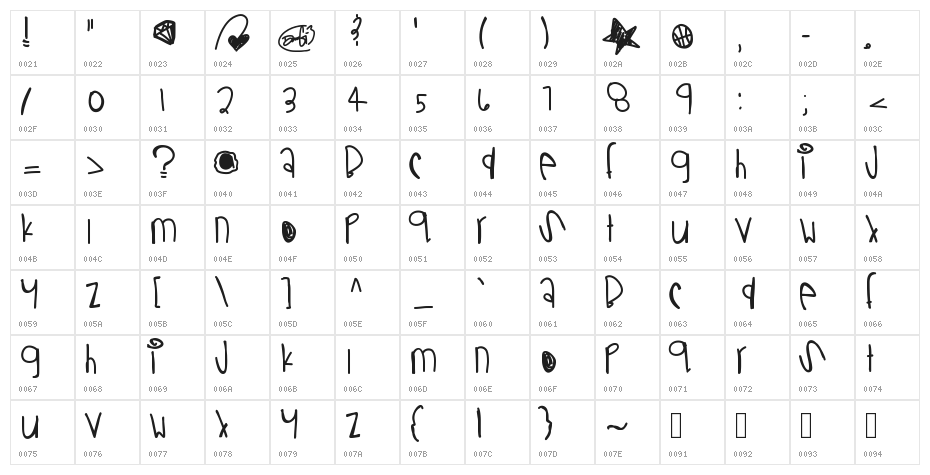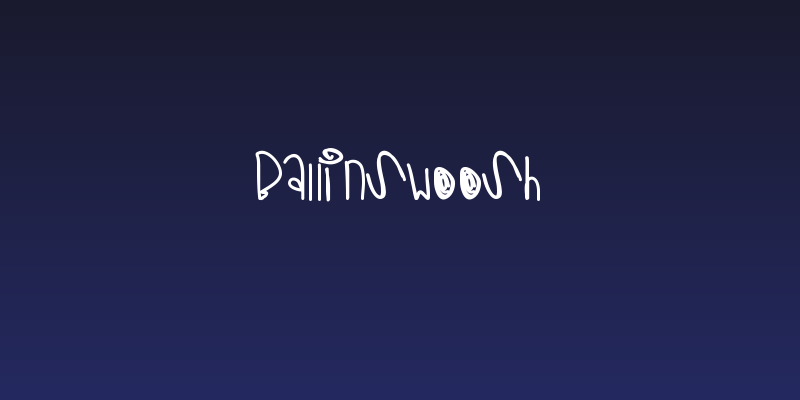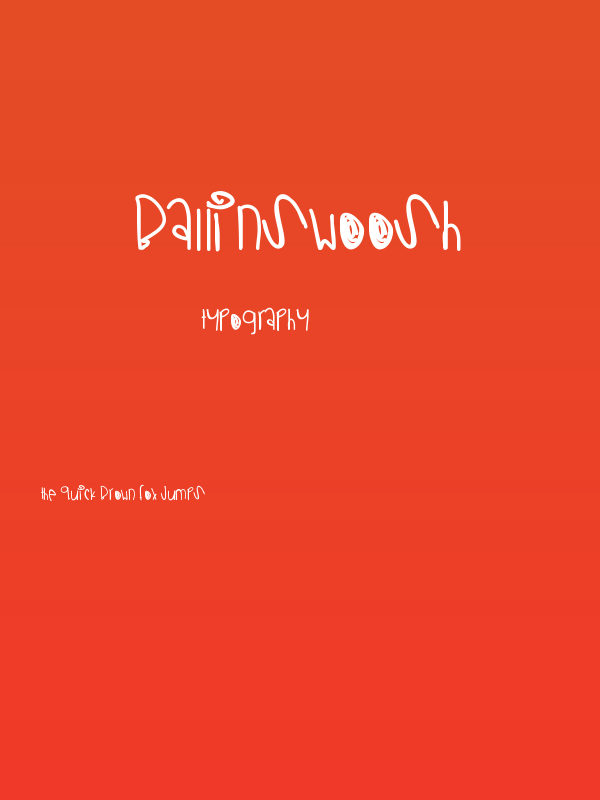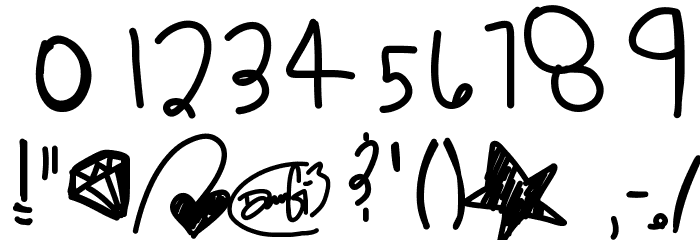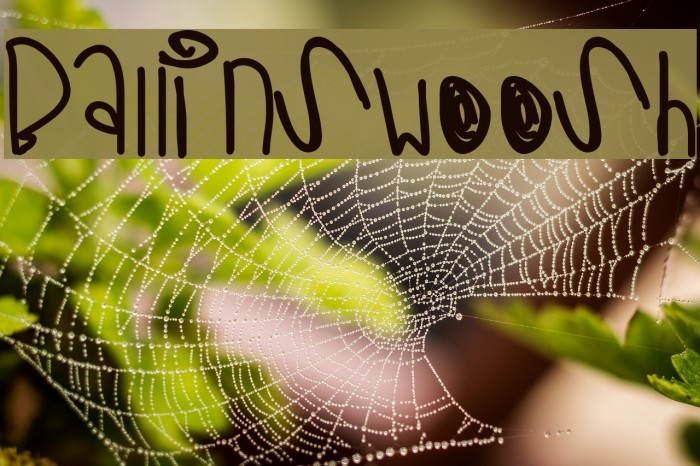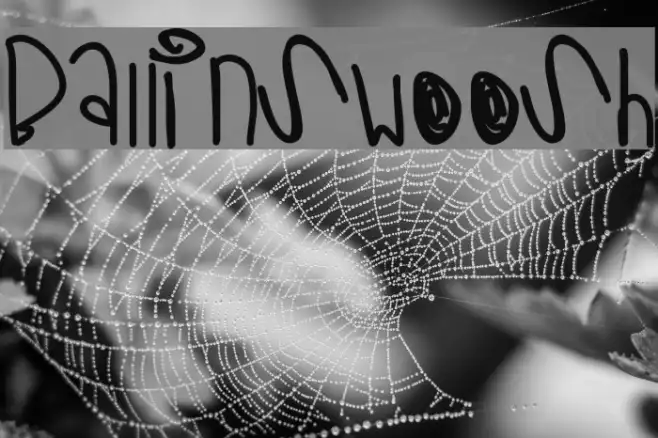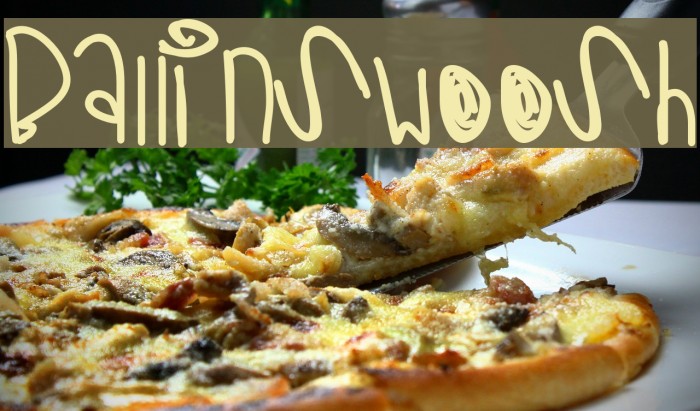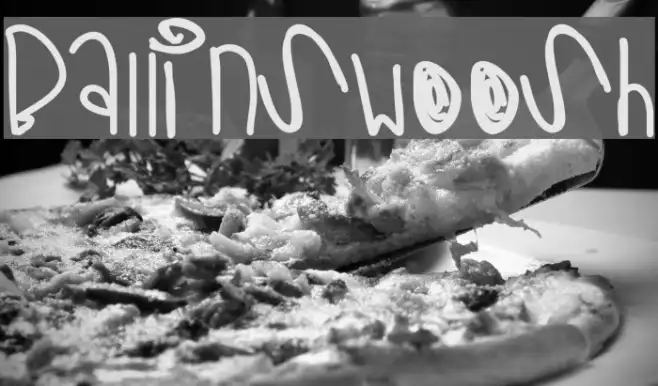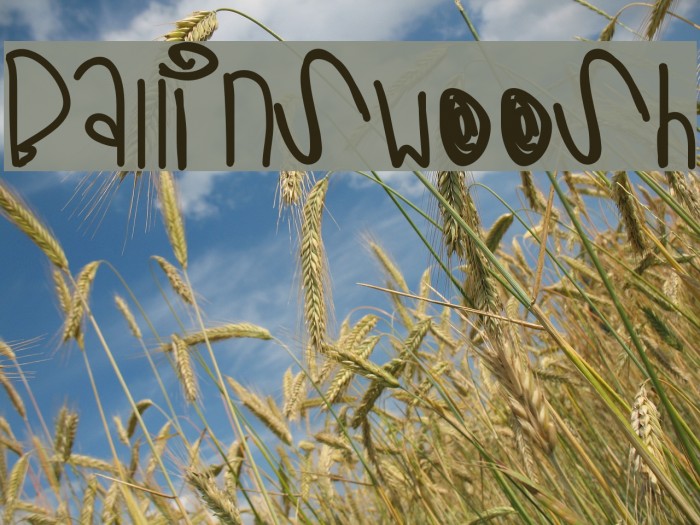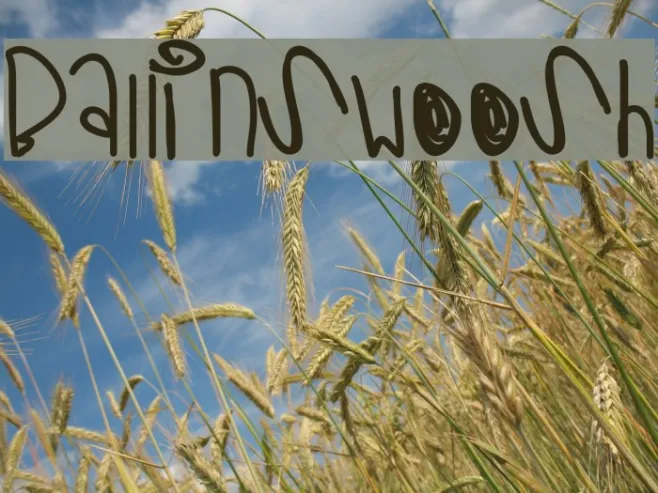
BallinSwoosh Font
BallinSwoosh Description
This playful and whimsical font features a hand-drawn style with a casual and informal appearance. The characters are slightly irregular, giving them a unique and artistic flair. The uppercase and lowercase letters maintain a consistent height, while the numbers and special characters add a touch of creativity with their unconventional shapes. The overall design is bold and expressive, making it suitable for projects that require a fun and lively aesthetic. The strokes are thick and consistent, providing a strong visual impact.
| Use Case | Logos, Posters, Creative projects |
| Proposed Projects | Ideal for children's books, playful branding, creative posters, and informal invitations. |